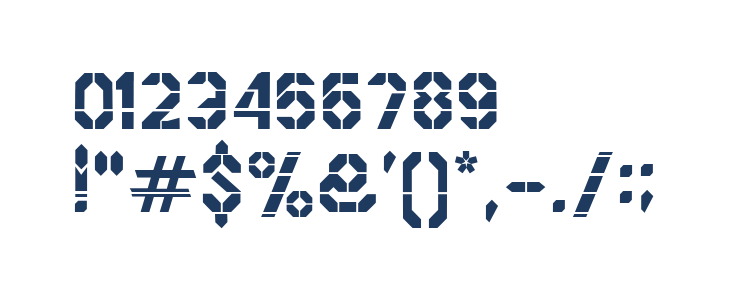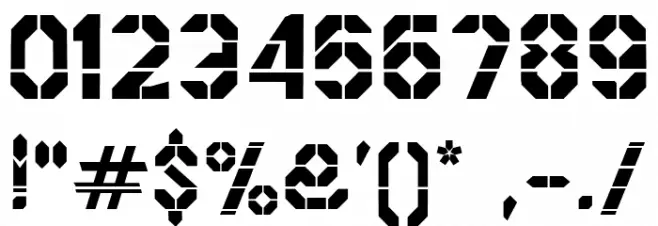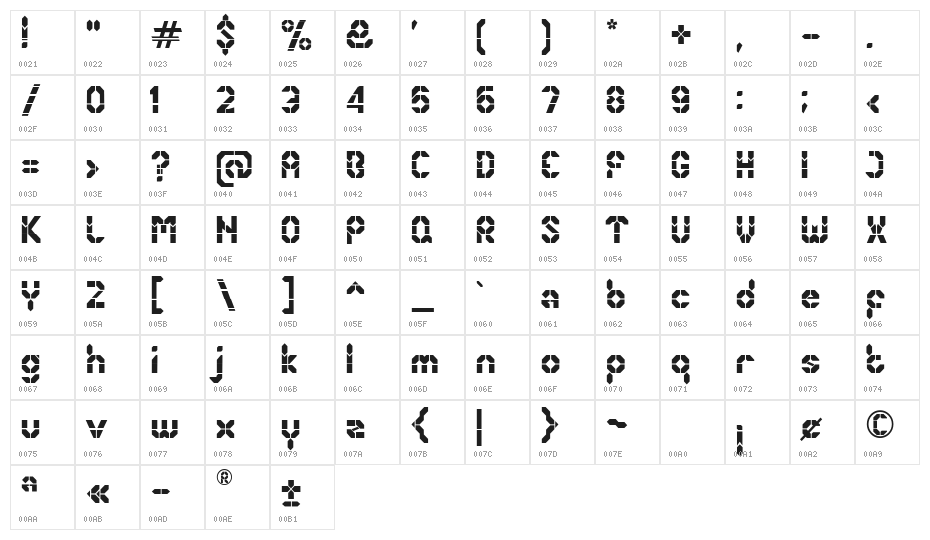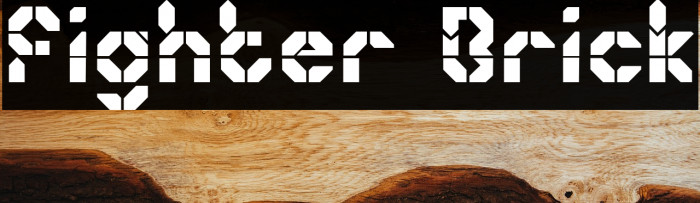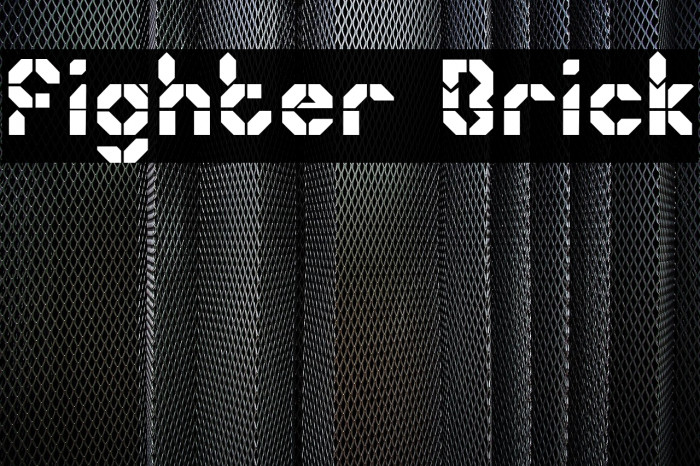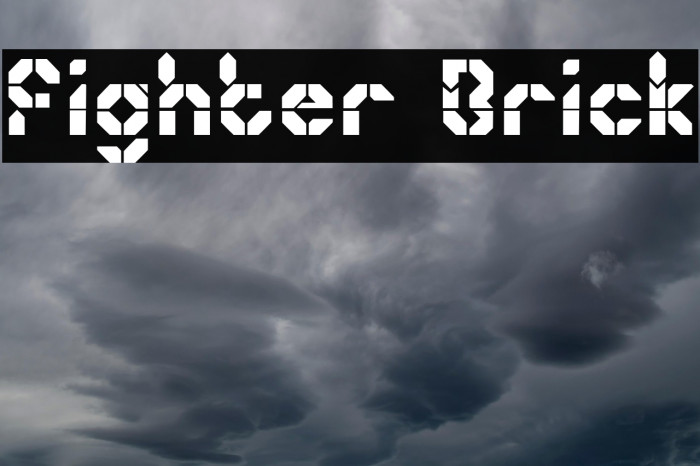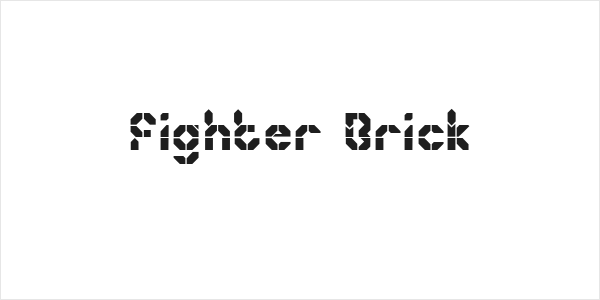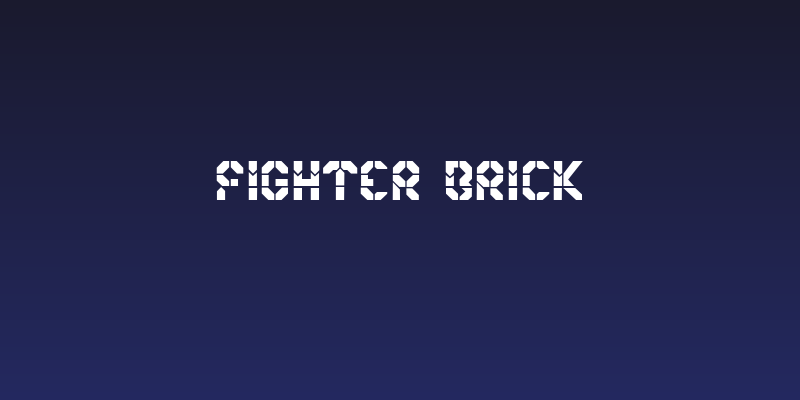
Fighter Brick Font
Fighter Brick Description
This font features a bold, geometric design with a blocky, angular appearance. Each character is constructed from a series of connected shapes, giving it a distinctive, industrial feel. The uppercase and lowercase letters maintain a consistent style, with sharp edges and a uniform thickness throughout. Numbers and special characters follow the same design principles, ensuring a cohesive look across all glyphs. The font's unique style makes it stand out, ideal for projects that require a strong visual impact.
| Overall Style | Modern, Industrial |
| Proposed Projects | Ideal for video game titles, posters, branding for tech companies, or any project needing a futuristic, strong aesthetic. |